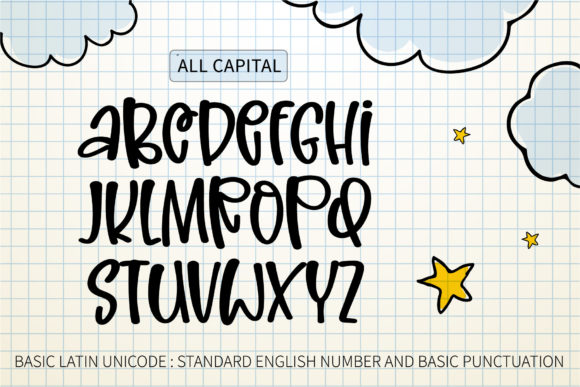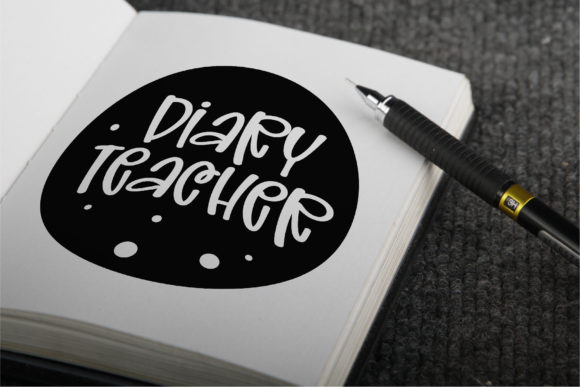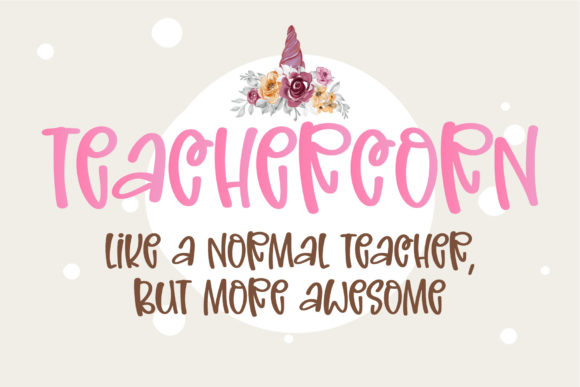
Online School Font
Online School is a cool, friendly, and informal handwritten font, that can be used for all chalkboard quotes or teaching material! Its authentic look and feel will add a personal and realistic feel to your designs.